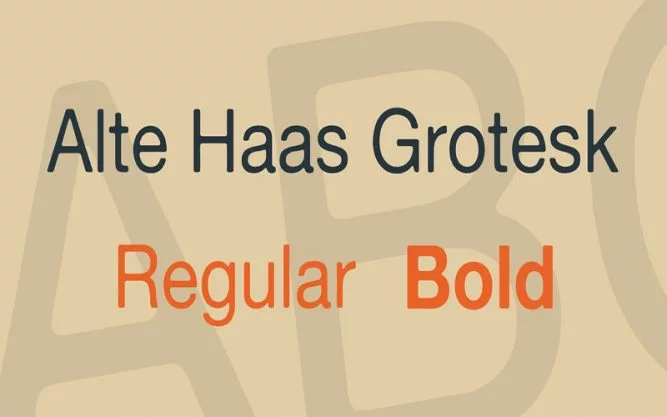
Alte Haas Grotesk Font is a free sans serif typeface that has a clean and clear beautiful look. This amazing font was made by Yann le Coroller and provides every type of design with a great tone.
The display font family contains two unique weights including regular and bold. This font has 268 characters and both weights contain everything that a font family should have.
You can easily use this fine-quality font for various purposes such as web designing, game titling, social media posters, banners, flyers, advertisements, movie posters, quotes, web development, and much more.
Alte Haas Grotesk Font
So, we can say that due to its professional look, it will make a great combo with other types of font families. Therefore, it can also be used for long text and large projects for font pairing.
You can also use this basic font for the official card. So, if you use this magnificent typeface somewhere, it will definitely give your design a very nice touch feeling at that time.